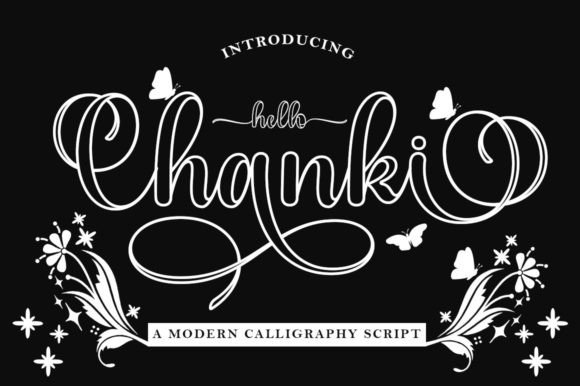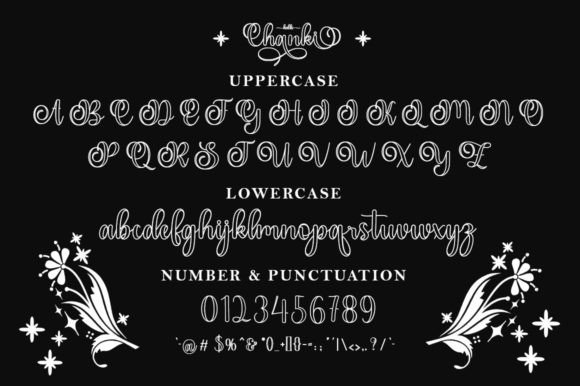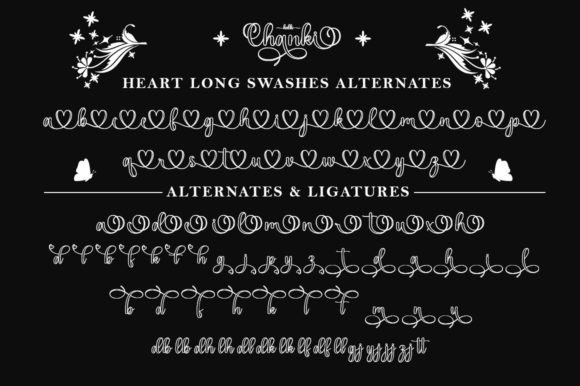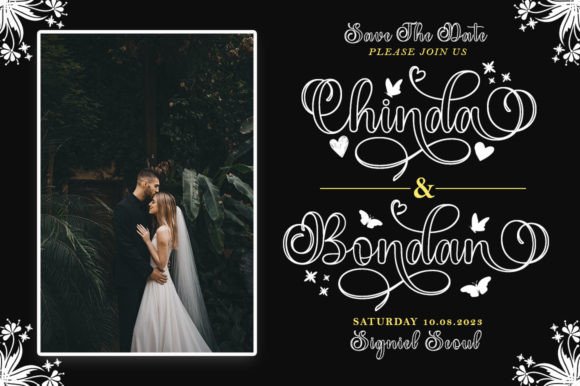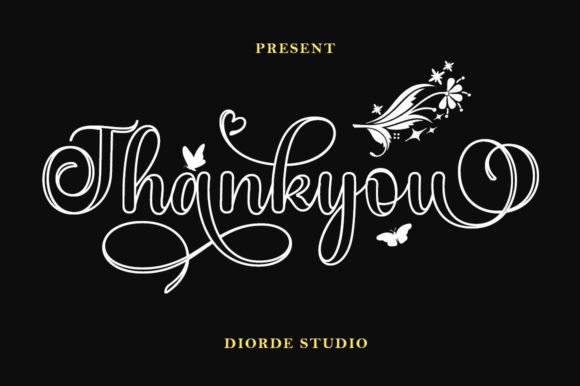
Hello Chanki Outline Font
Hello Chanki Outline is a neat, beautiful, and elegant handwritten font perfect for your favorite projects. Fun and relaxed, this font is ideal for writing wedding invitations, cards, or any other design that might need a fancy touch! Fall in love with its radically different and timeless style, and use it to create spectacular designs!